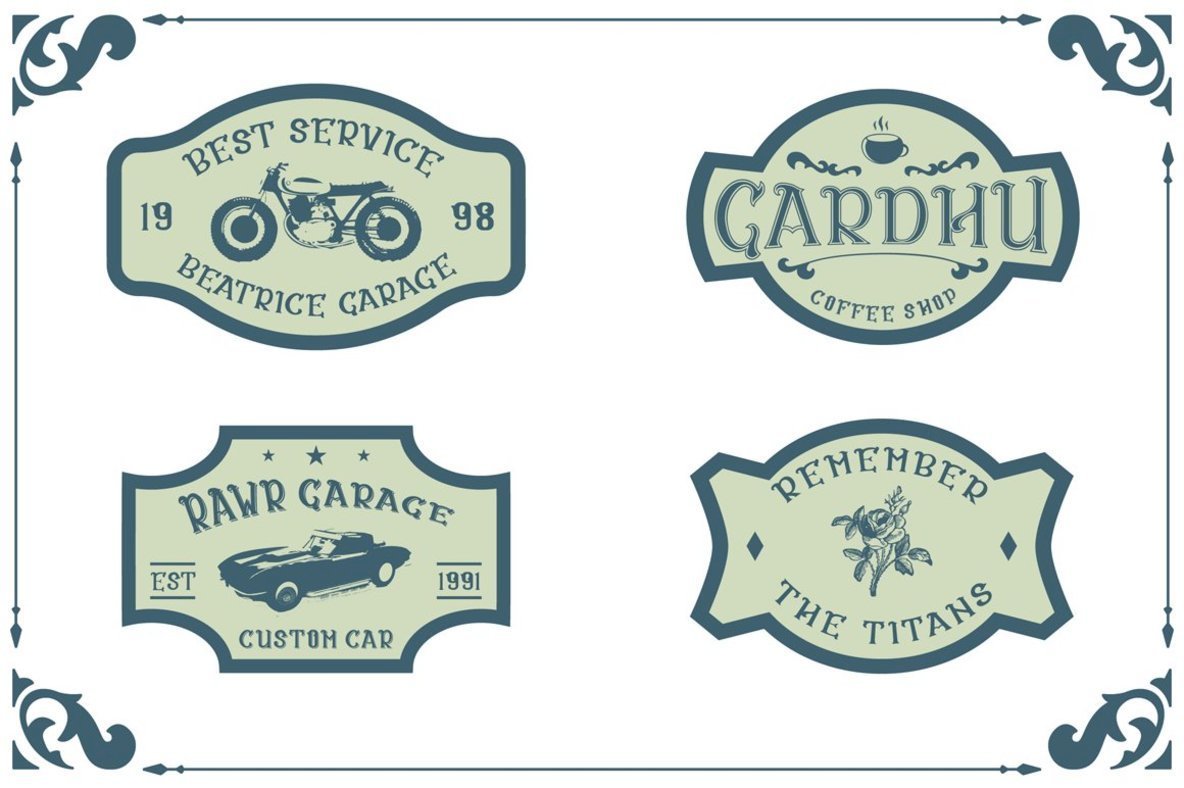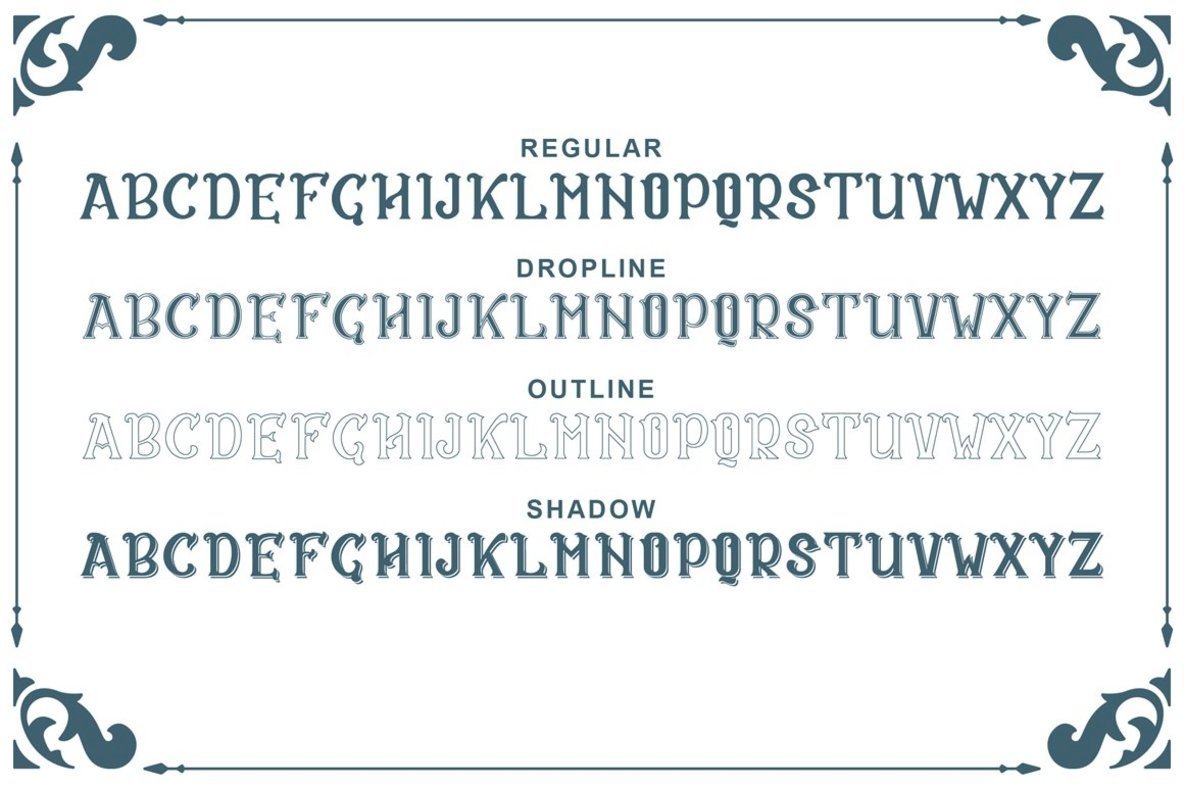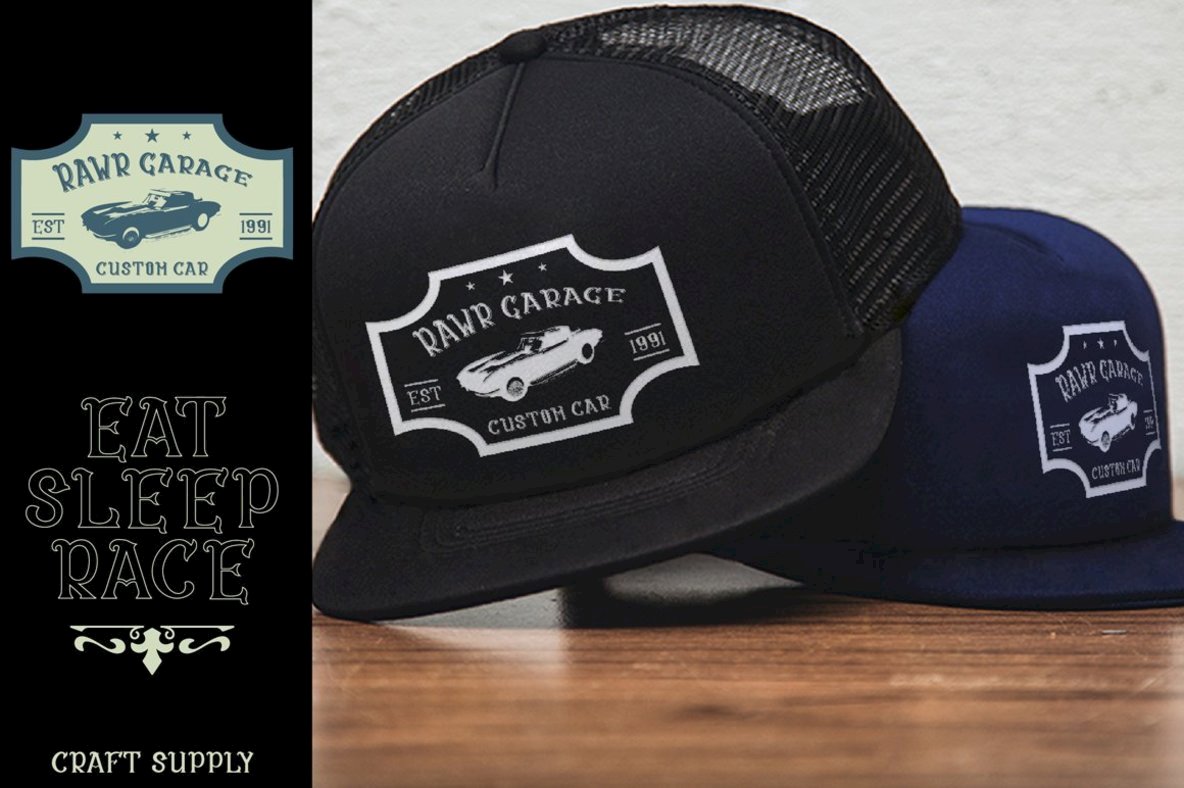
CS Rosalia Font
CS Rosalia by Craft Supply Co. offers a comprehensive suite of four distinctive styles, perfectly adaptable for a myriad of design ventures, from print materials to digital designs. Whether crafting a greeting card, branding a venture, or designing a retro piece, CS Rosalia adds vibrancy and sophistication to your work, effortlessly. No specialized software is required to use CS Rosalia, making it accessible for all creators. Bring any project to life with this adaptable and imaginative family of fonts.CS Rosalia: A Versatile Font Family for Creative Projects